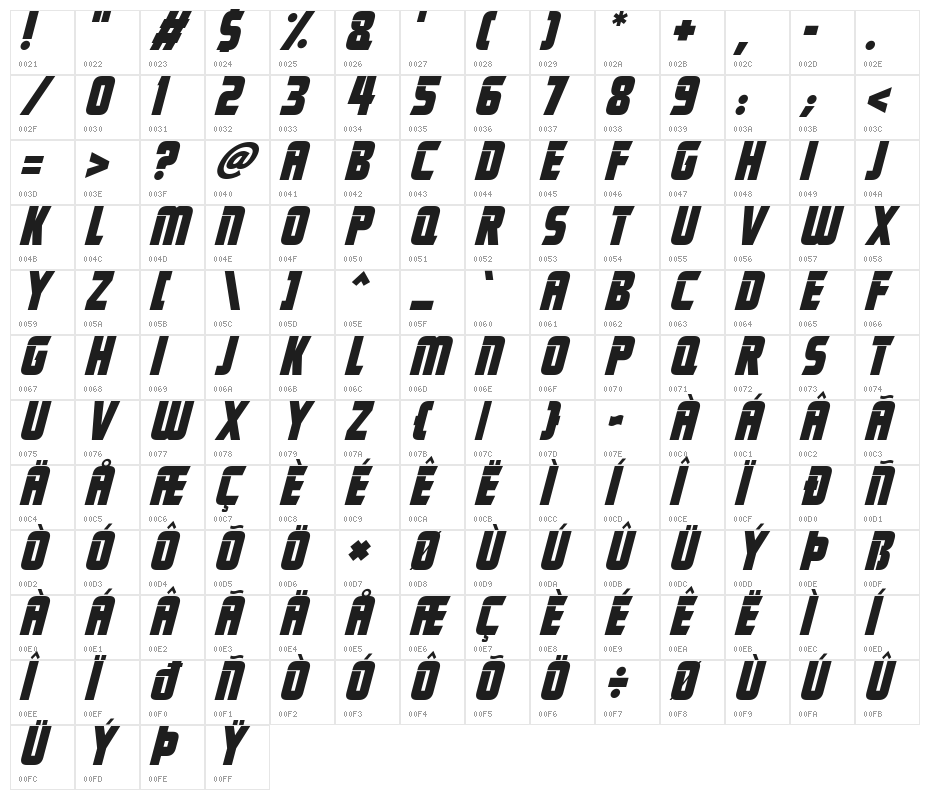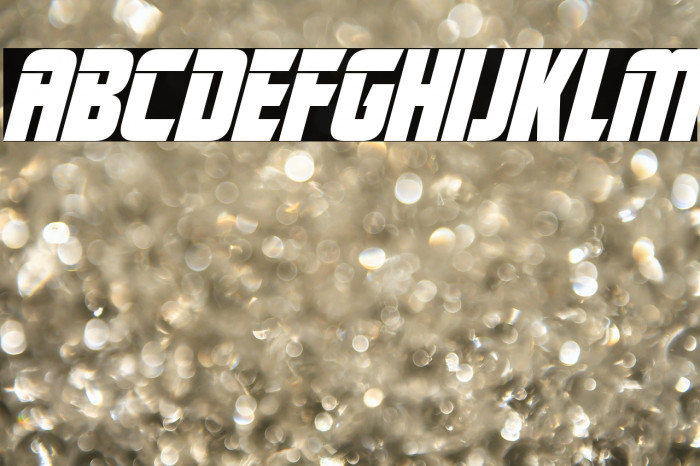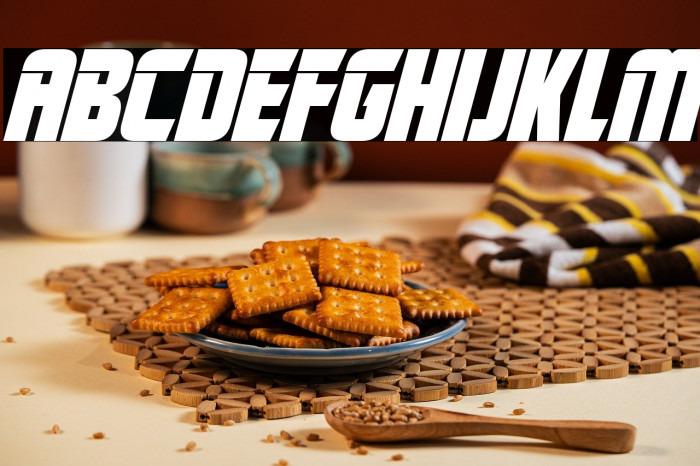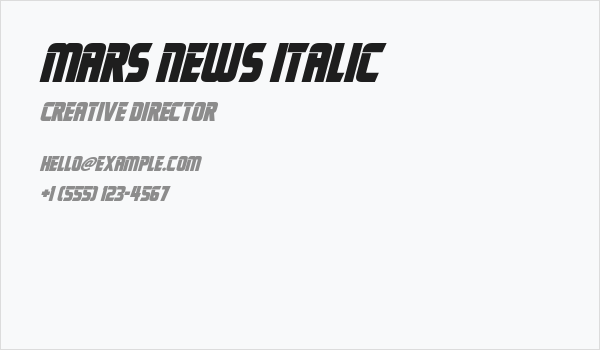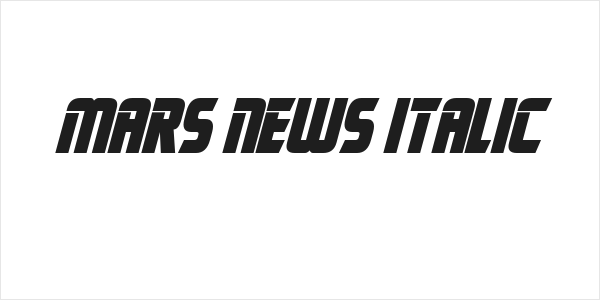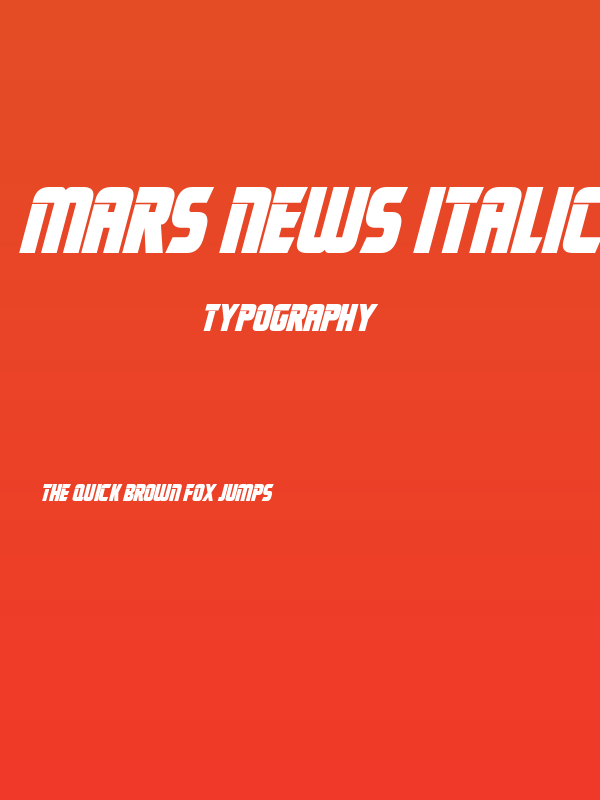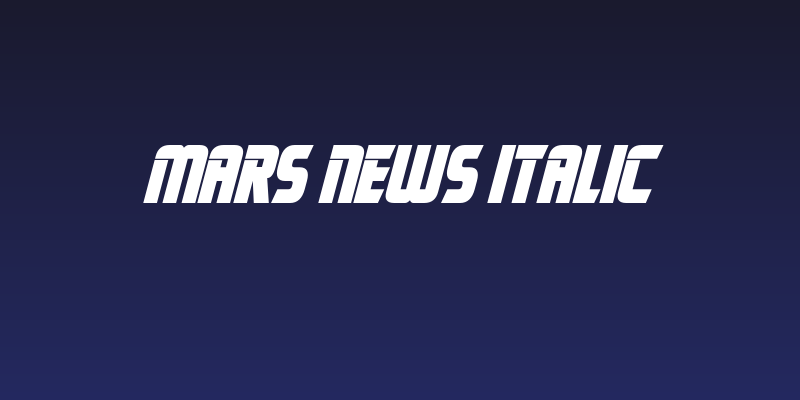
Mars News Italic Font
Mars News Italic Description
This font exhibits a bold and dynamic style with a strong italic slant, giving it a sense of motion and urgency. The characters are thick and robust, featuring sharp angles and clean lines that enhance its modern and futuristic appearance. The uppercase and lowercase letters maintain a consistent style, with the uppercase being slightly more pronounced. Numbers and special characters follow the same bold and italicized design, ensuring uniformity across all glyphs. The font's aggressive and forward-leaning stance makes it ideal for attention-grabbing headlines and impactful designs.
| Proposed Projects | Ideal for sports branding, futuristic designs, tech-related projects, and dynamic advertising campaigns. |